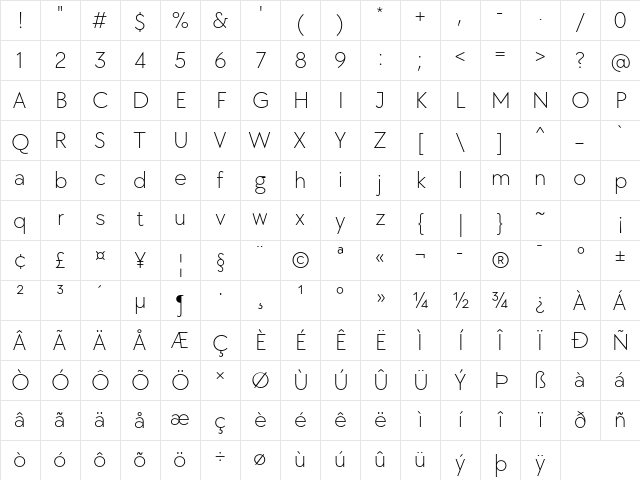
Complete TT Chocolates Trl ExtraLight glyph index. Displaying only characters natively supported by TT Chocolates Trl ExtraLight font.
TT Chocolates Trl is a composed and adaptable typeface that performs quietly and consistently across a wide range of design contexts. Its slender proportions lend an understated elegance to any composition.